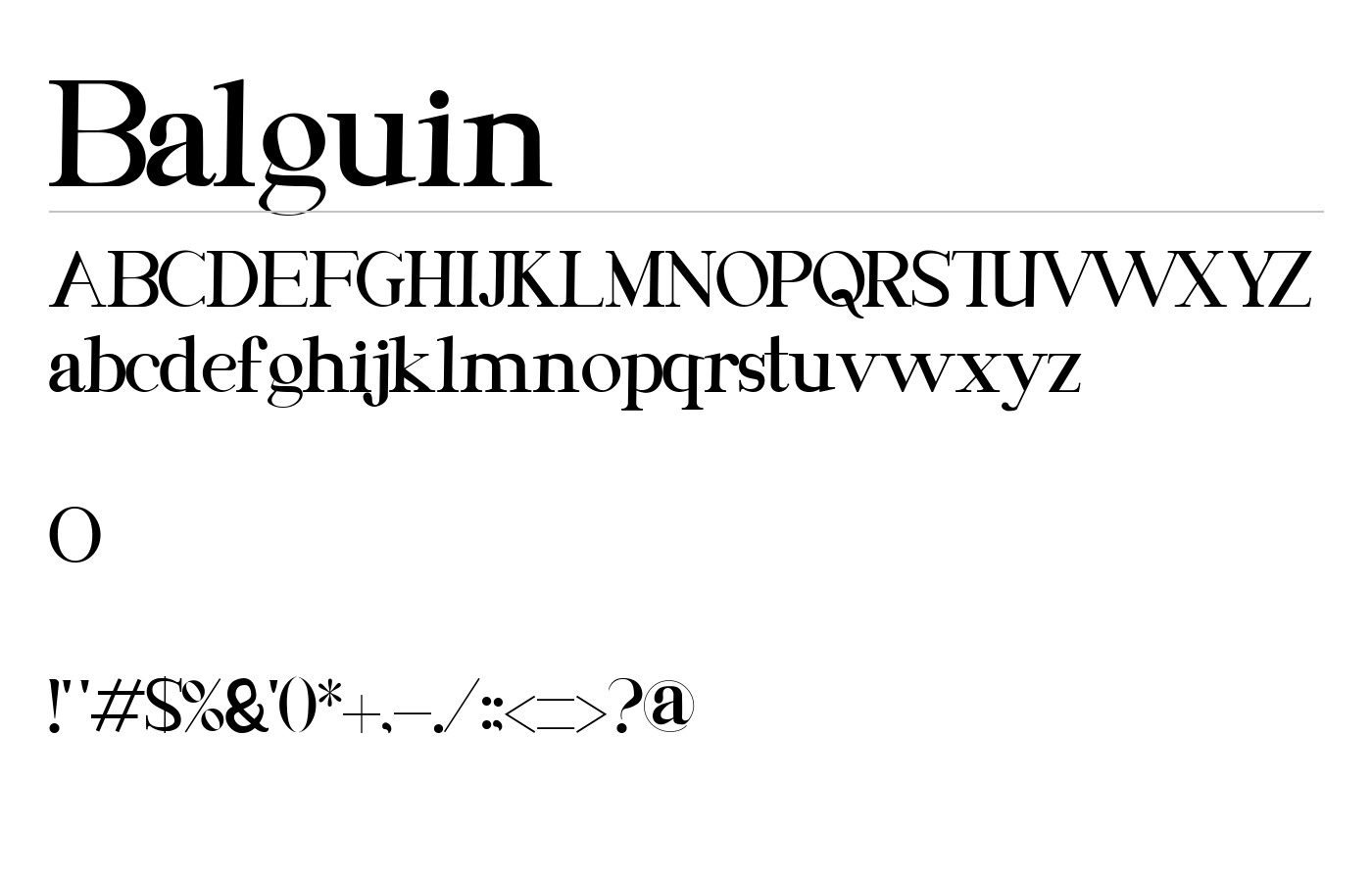
Balguin is an elegant serif font with a refined and classic feel, marked by its high contrast between thick and thin strokes and delicate, sharply bracketed serifs. Its tall x-height and distinct letterforms, including unique details like the curled tail on the lowercase 'g', make it suitable for sophisticated branding, editorial design, and high-end fashion contexts. This font works best in headlines and logos where its stylish, timeless personality can truly shine.
Balguin Font